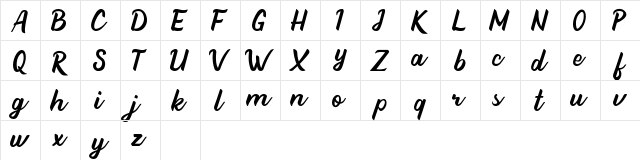
Beathy Regular
Design Context for Beathy Typeface
Beathy is a composed and adaptable typeface that performs quietly and consistently across a wide range of design contexts.